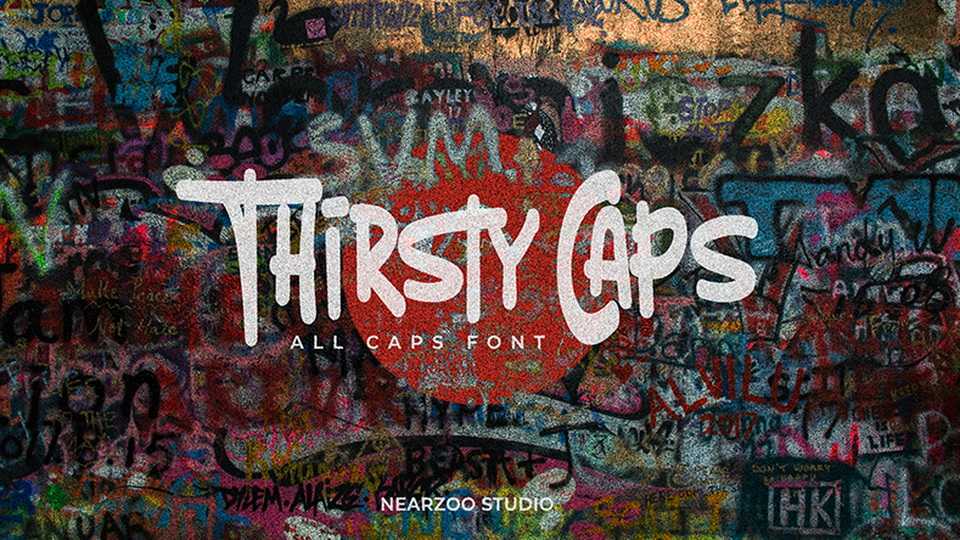
Download Thirsty Caps font, a hand lettered typeface inspired by graffiti and street culture. Thirsty Caps is great for posters, album artworks, apparel designs and so on.
Designer: Nearzoo Studio